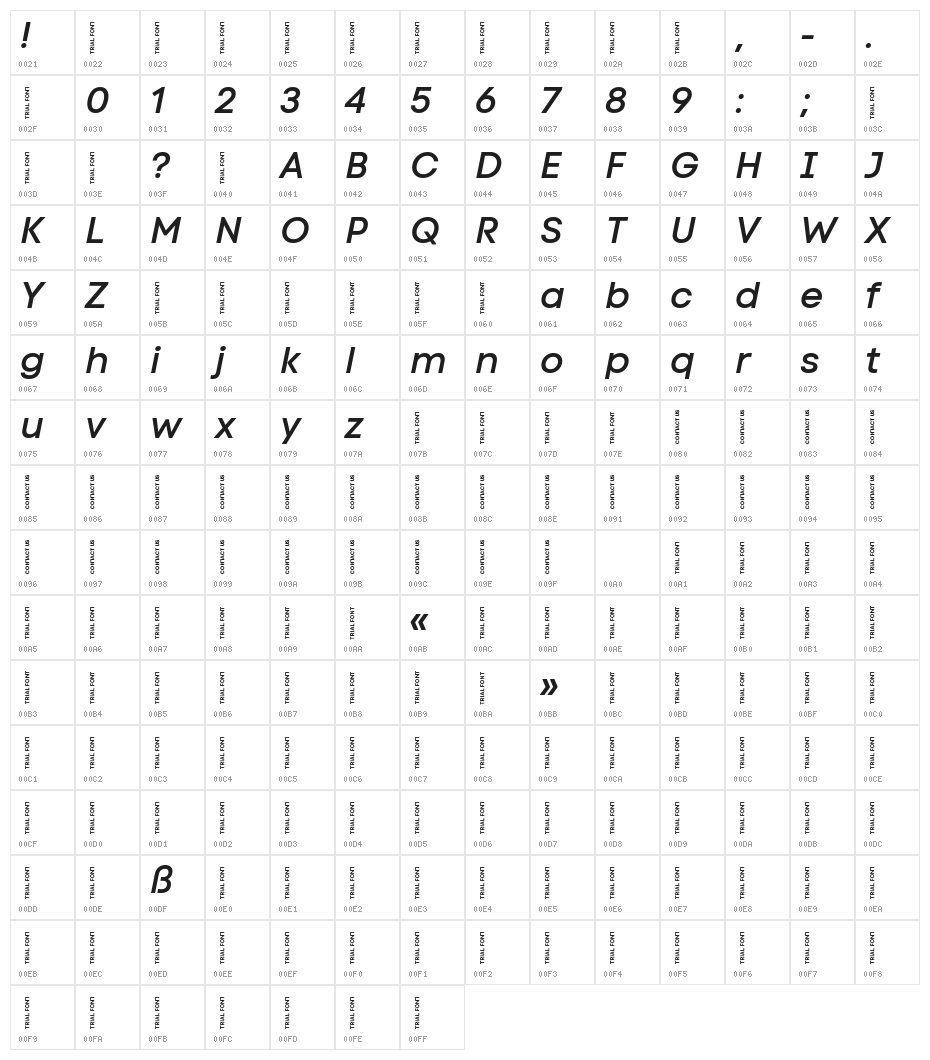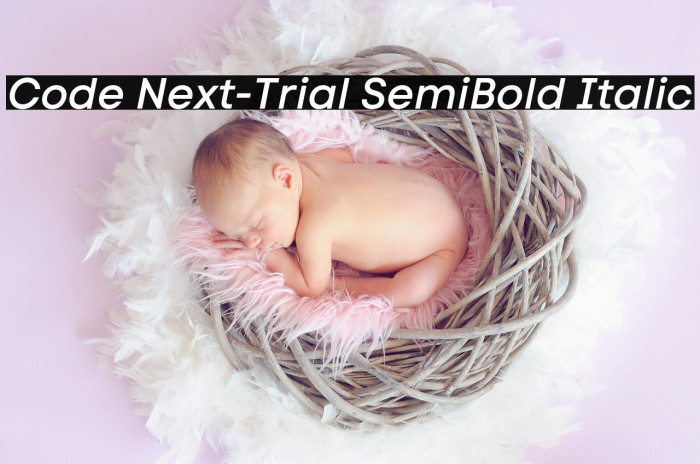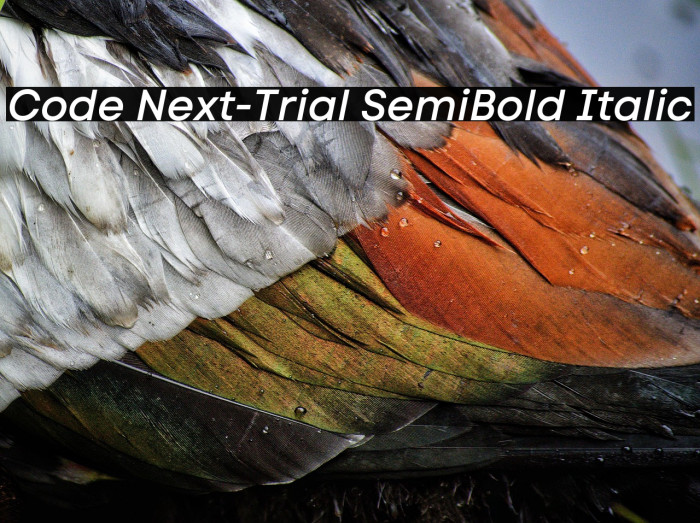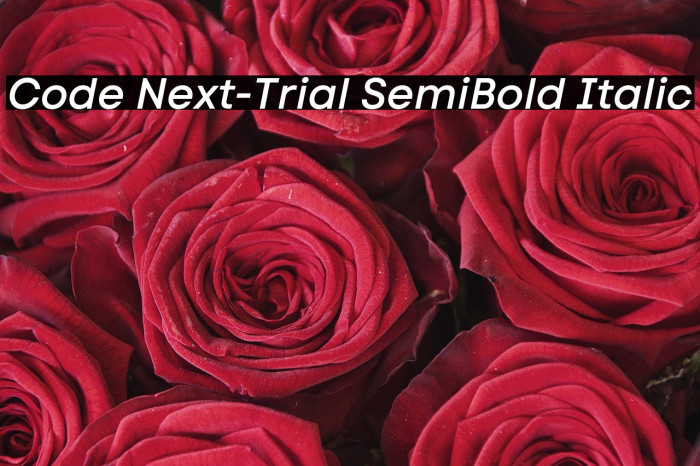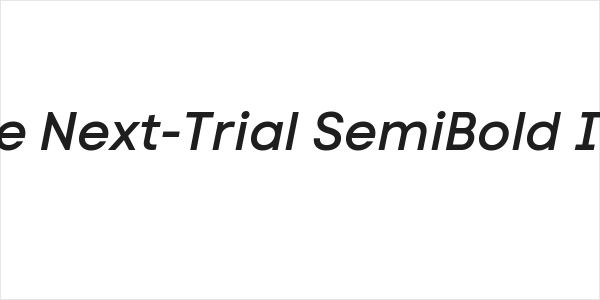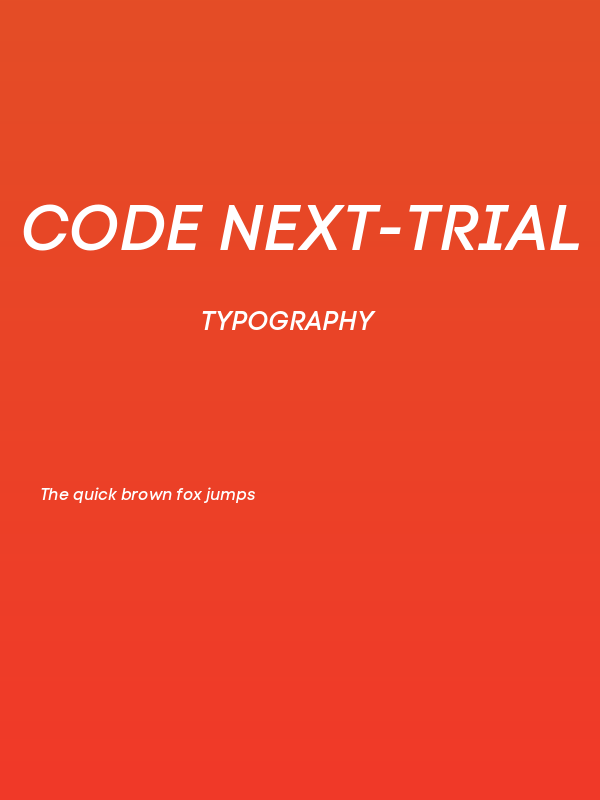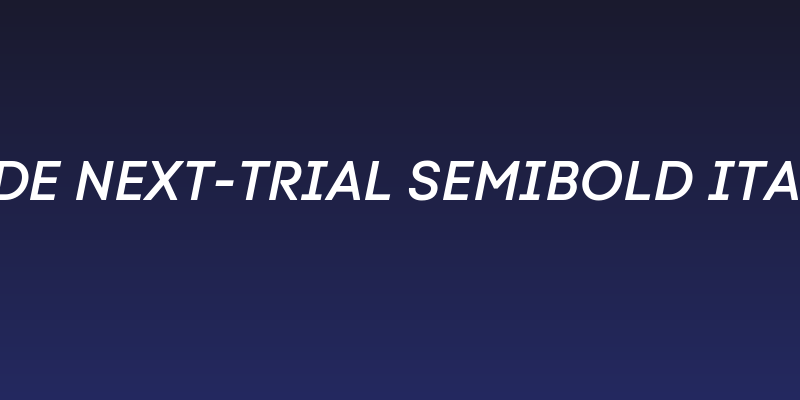
Code Next-Trial SemiBold Italic Font
Code Next-Trial SemiBold Italic Description
This font exhibits a sleek and modern design with a semi-bold weight and italic style. The characters are slightly slanted, giving a dynamic and forward-moving appearance. The strokes are consistent, with medium contrast that adds to its readability and elegance. The font maintains a clean and professional look, suitable for various digital and print applications. Its sans-serif nature ensures clarity and simplicity, making it versatile for different uses. The character spacing is normal, providing a balanced and harmonious text flow.
| Proposed Projects | Ideal for branding, advertising, digital content, and editorial design where a modern and professional look is desired. |